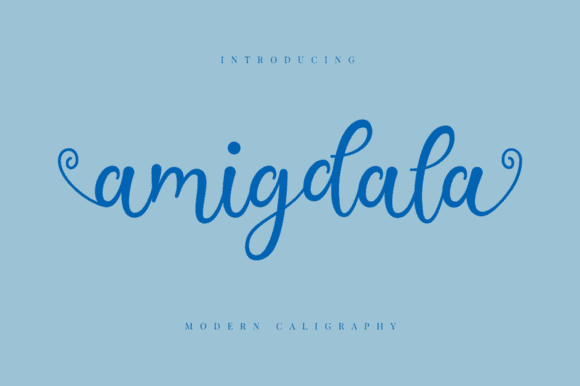
Amigdala Font for Crafting, Logos and Print Projects
Amigdala is a stylish font that merges handwritten aesthetics with print-ready precision. Designed for crafting, logo development, and decorative print projects, it adds a touch of elegance and flair to every design it enhances.
This font entity features unique letterforms and fluid strokes, ideal for statement logos, boutique branding, and personalized items. Whether you're crafting by hand or digitally designing, Amigdala provides versatile creative control. With its elegant curves and distinctive style, this font elevates any design, making it perfect for both print and digital applications. Consider pairing it with complementary graphics to enhance its impact, especially in luxury contexts. The angelitta font for design projects offers an exceptional balance of sophistication and creativity, ensuring that your work stands out effortlessly.
Its signature style makes it suitable for both minimalist layouts and elaborate compositions, maintaining legibility and charm throughout.
- Elegant logo and branding packages
- Custom invitations and wedding suites
- Wall art prints and inspirational quotes
- Product packaging and hang tags
- Merchandise, stickers, and signage
- Elegant and handcrafted visual appeal
- Ideal for branding, crafting, and print layouts
- Works across print, digital, and cut applications
- Balanced between artistic style and readability
Q: What kind of font is Amigdala?
A: Amigdala is a handcrafted-style script font suitable for logos, print products, and creative design work.